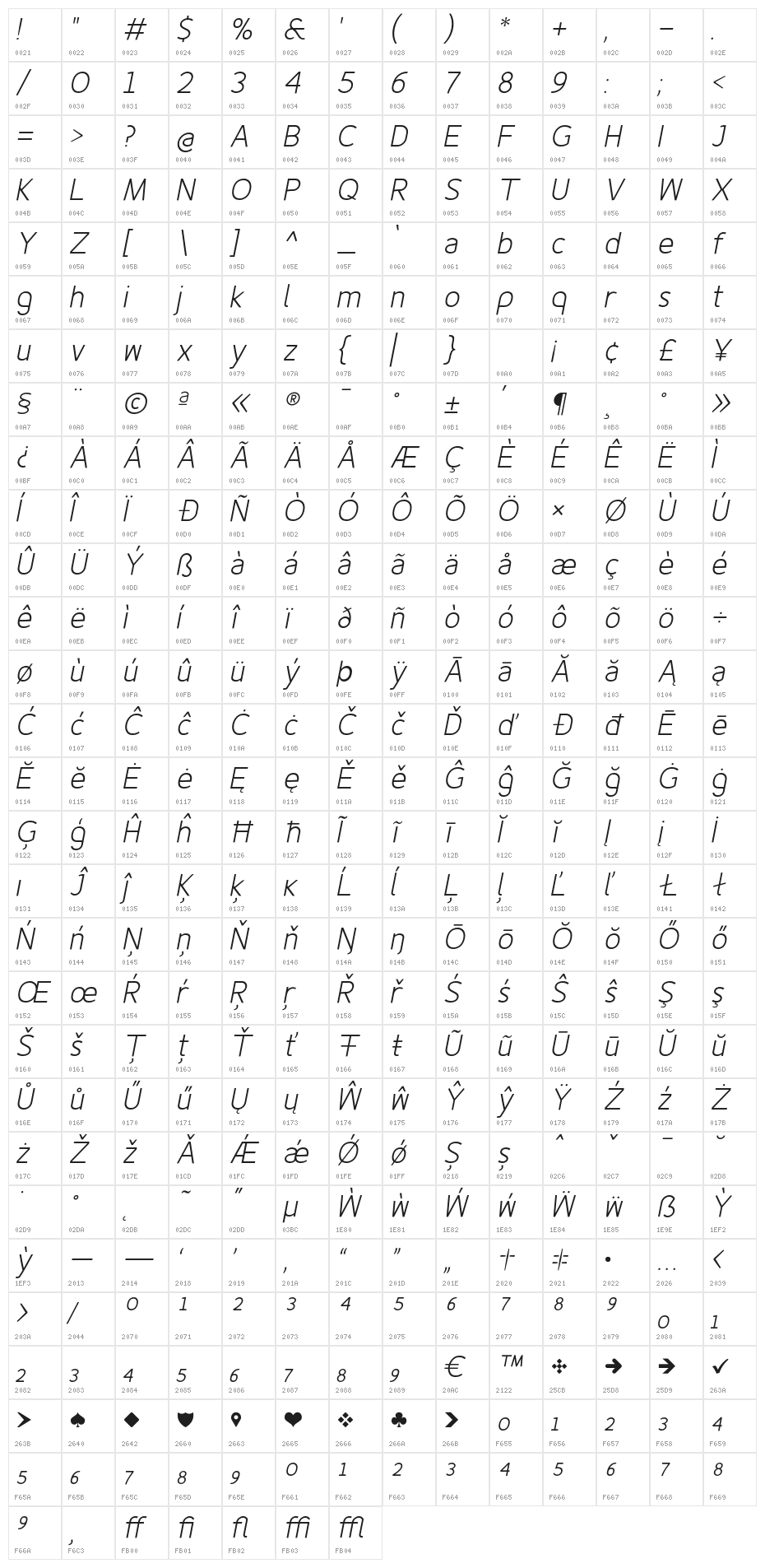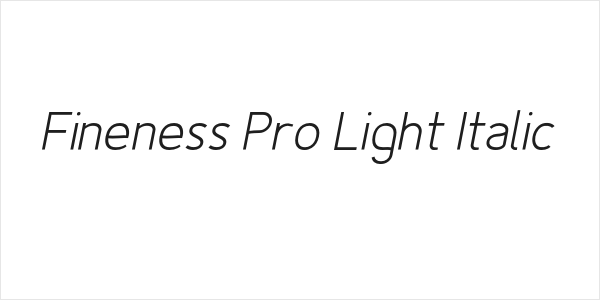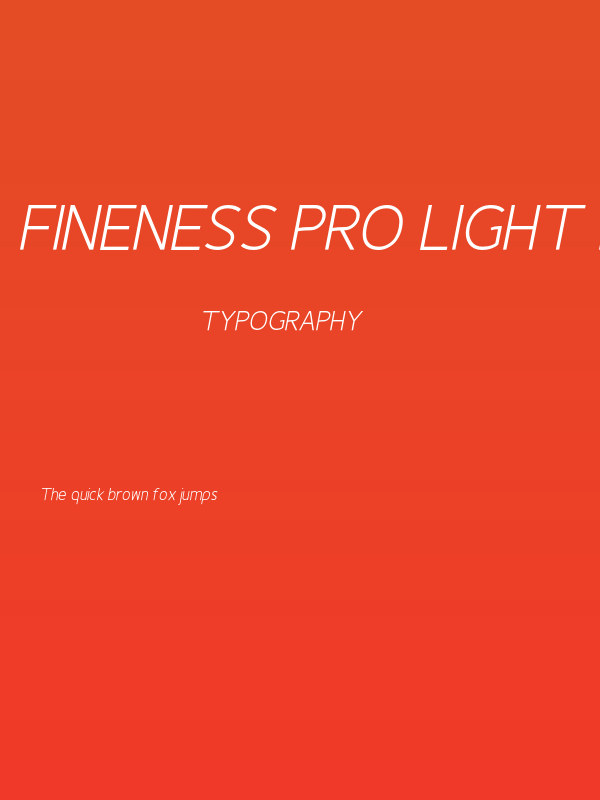
Fineness Pro Light Italic Font
Fineness Pro Light Italic Description
This font features a sleek and modern design with a light weight and italic style, offering a refined and elegant appearance. The characters are slightly elongated, providing a sense of movement and fluidity. The sans-serif design ensures clarity and readability, making it suitable for various applications. The spacing between characters is normal, allowing for a clean and uncluttered look. The font's low contrast in stroke thickness contributes to its minimalist and sophisticated aesthetic, ideal for contemporary design projects.